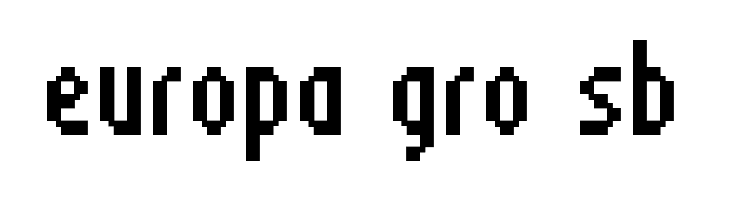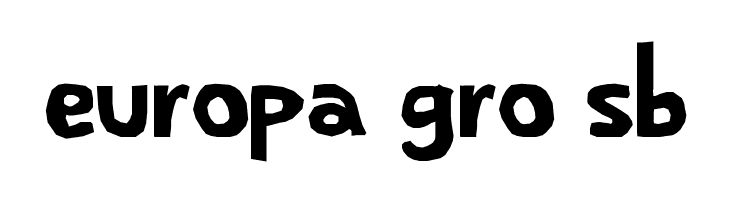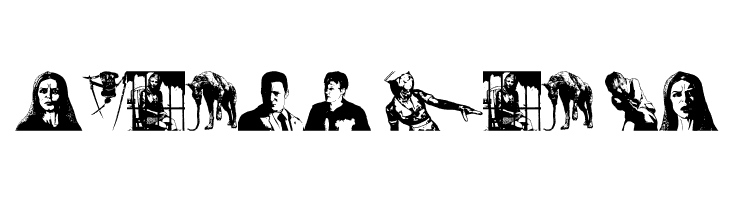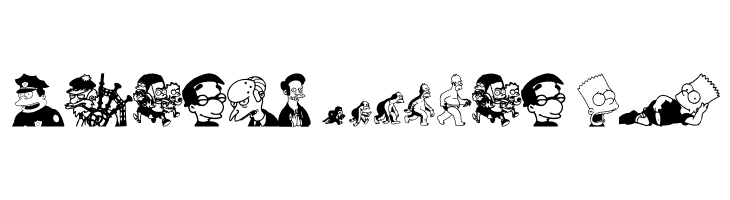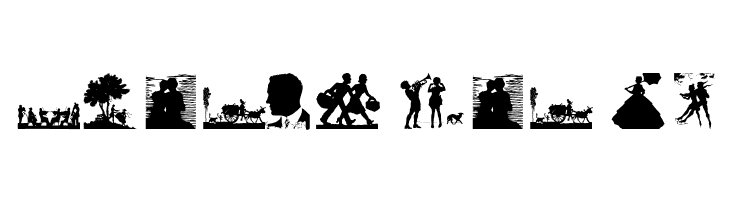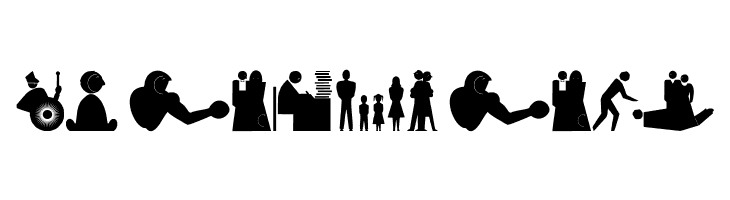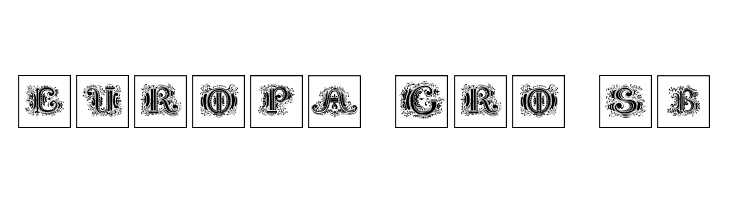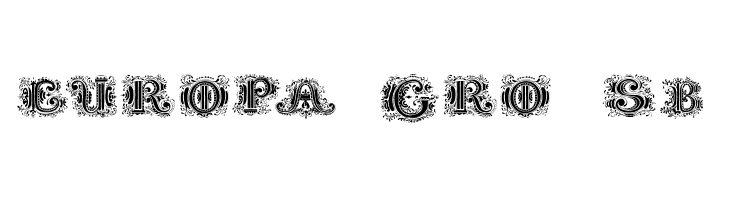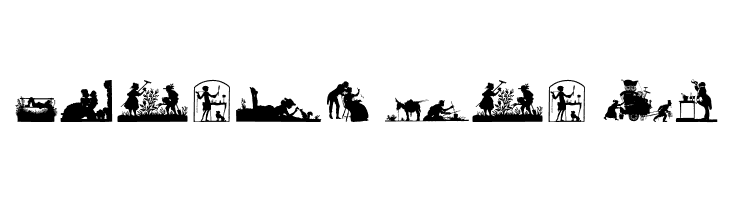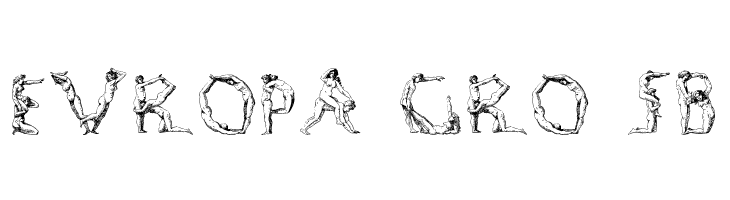
• Silent Hill Nightmares
• SilhouettenPeople
Decorative silhouette font featuring vintage people scenes.
• SilhousOldfashion
A decorative font with intricate silhouette scenes and figures.
• SilhousSimplex
Silhouette pictograms depicting people in diverse actions.
• Silky Wonderland
• SilvestreBodies
A decorative font using human figures to form each letter, offering a unique and artistic style.
• SilvestreInitials
An ornate and decorative font with intricate floral embellishments.
• SilvestreInitialsSquares
Ornate, decorative initials with floral embellishments in square borders.
• SimpleLife
• Simpsons MmmmFont